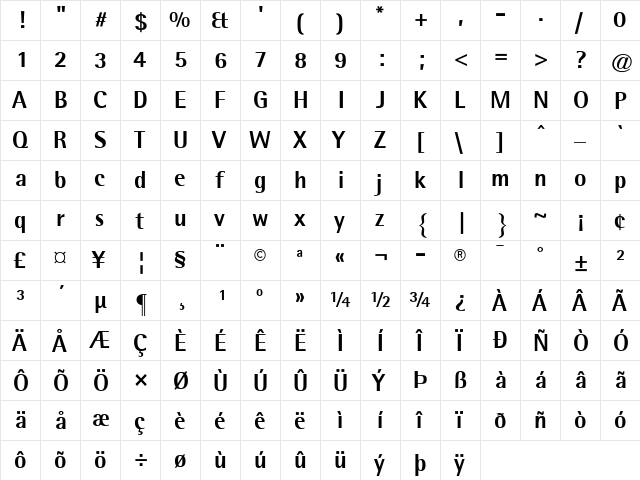
RotisSemiSans ExtraBold Regular
Design Context for RotisSemiSans ExtraBold Typeface
RotisSemiSans ExtraBold takes a measured approach to typography — its balanced proportions and neutral character make it a reliable workhorse for both digital and print work. The heavy weight commands attention and anchors typographic hierarchies.